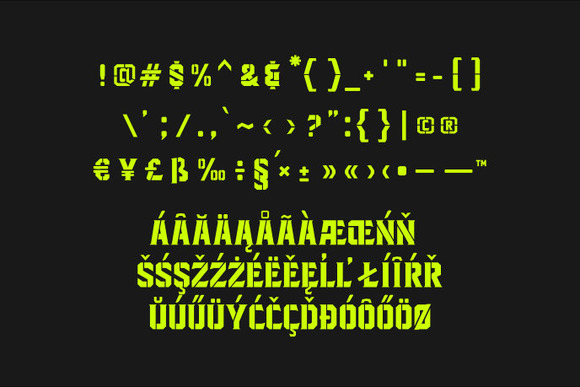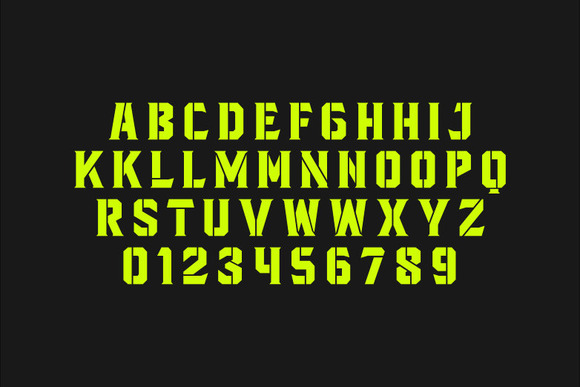
Introducing Blacktroops Stencil Font: A Timeless Classic for Designers and Crafters
In the world of typography, few fonts have managed to stand the test of time like the Blacktroops Stencil Font. This classic, old-school sans serif display typeface has been a staple in the design community for years, and its enduring popularity is a testament to its versatility and timeless appeal. In this article, we’ll take a closer look at the Blacktroops Stencil Font, its history, features, and uses, as well as provide tips and inspiration for designers and crafters looking to incorporate this iconic font into their work.
A Brief History of Blacktroops Stencil Font
The Blacktroops Stencil Font has its roots in traditional stencil typography, which dates back to the early 20th century. Stencil fonts were originally used for military and industrial applications, where clear, bold lettering was essential for communication and identification. Over time, stencil fonts like Blacktroops evolved to become a staple in graphic design, prized for their rugged, industrial aesthetic and versatility.
Key Features of Blacktroops Stencil Font
So, what makes the Blacktroops Stencil Font so special? Here are a few key features that set it apart:
- Classic sans serif design: Blacktroops boasts a clean, minimalist design that’s perfect for creating bold, eye-catching headlines and titles.
- Stencil style: The font’s stencil style gives it a rugged, industrial look that’s perfect for designs that require a bit of edge.
- Highly legible: Despite its bold, stencil-like design, Blacktroops is highly legible, making it perfect for use in a variety of applications, from signage to digital displays.
- Versatile: Blacktroops can be used in a wide range of contexts, from military and industrial designs to more creative applications, such as posters, flyers, and logos.
Uses for Blacktroops Stencil Font
So, what can you use the Blacktroops Stencil Font for? The possibilities are endless, but here are a few ideas to get you started:
- Signage and displays: Blacktroops is perfect for creating bold, eye-catching signs and displays that need to grab attention.
- Logos and branding: The font’s unique stencil style makes it a great choice for logos and branding applications that require a bit of edge.
- Posters and flyers: Blacktroops is a great choice for creating bold, attention-grabbing posters and flyers that need to stand out.
- Crafting and DIY projects: The font’s stencil style makes it perfect for use in crafting and DIY projects, such as stenciling, scrapbooking, and more.
Tips for Using Blacktroops Stencil Font
Here are a few tips to keep in mind when using the Blacktroops Stencil Font:
- Use it sparingly: Blacktroops is a bold font, and using it sparingly can help create maximum impact.
- Experiment with colors and textures: The font’s stencil style lends itself well to creative color and texture combinations.
- Pair it with complementary fonts: Blacktroops pairs well with a variety of fonts, including sans serif fonts like Arial and Helvetica.
Inspiration and Resources
Need some inspiration or resources to get started with the Blacktroops Stencil Font? Here are a few ideas:
- Creative communities: Joining online communities like Reddit’s r/design and r/ graphicdesign can connect you with other designers and provide valuable feedback and inspiration.
In conclusion, the Blacktroops Stencil Font is a timeless classic that’s perfect for designers and crafters looking to add a bit of edge to their work. With its bold, industrial aesthetic and versatile design, Blacktroops is sure to remain a staple in the design community for years to come.